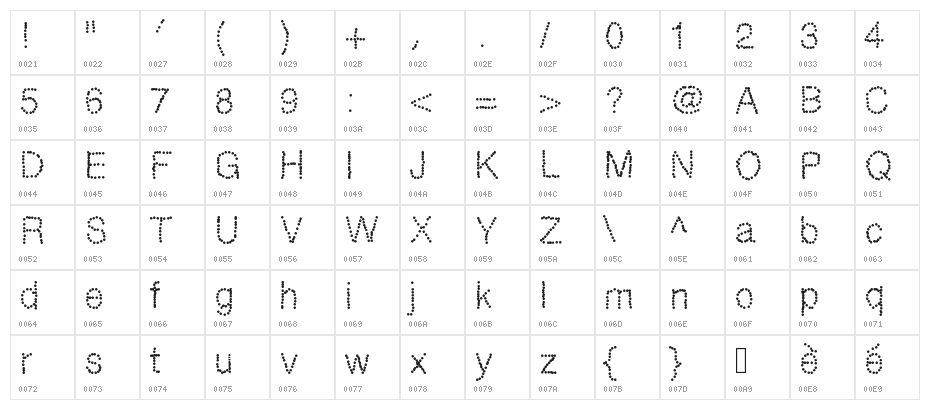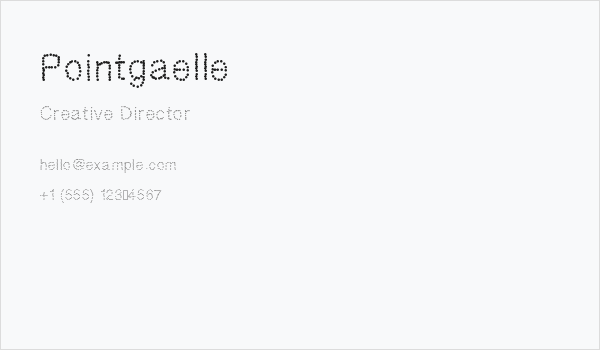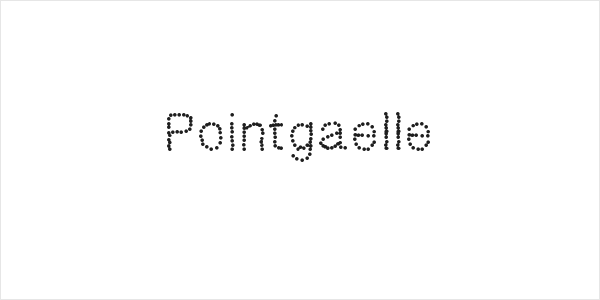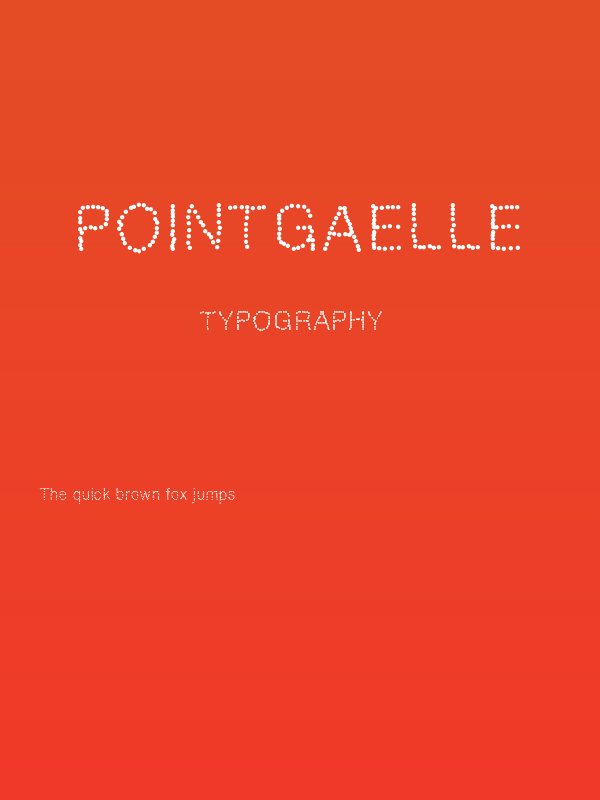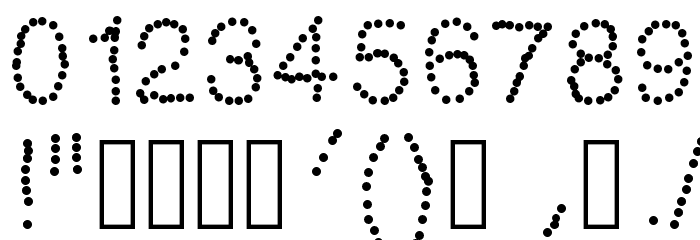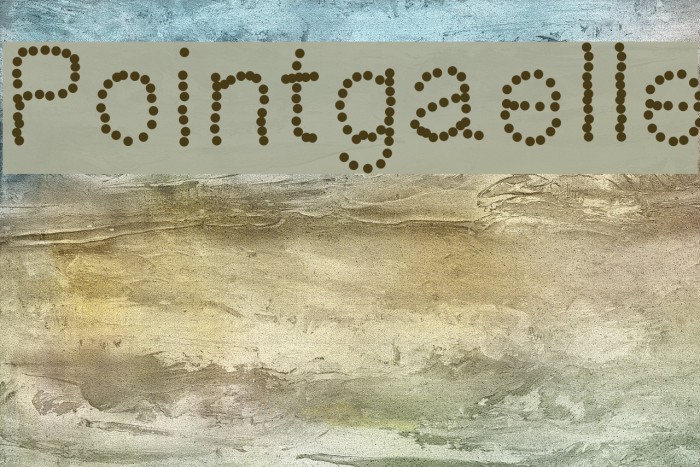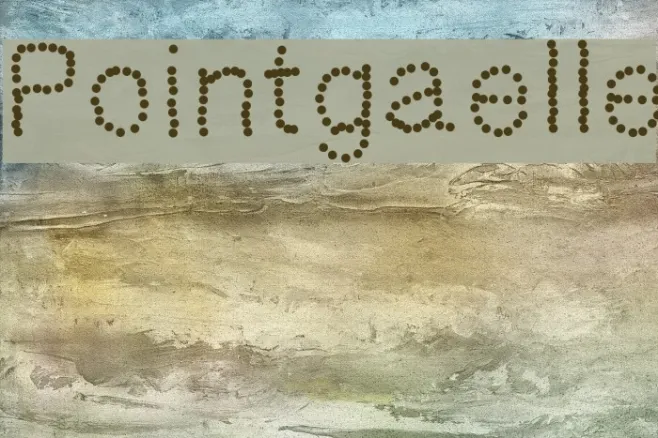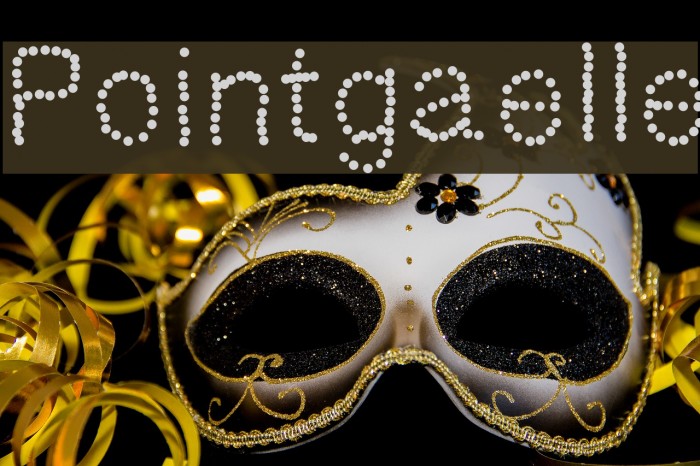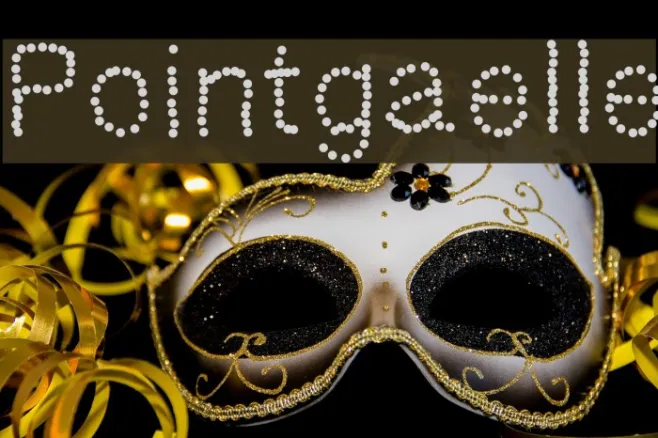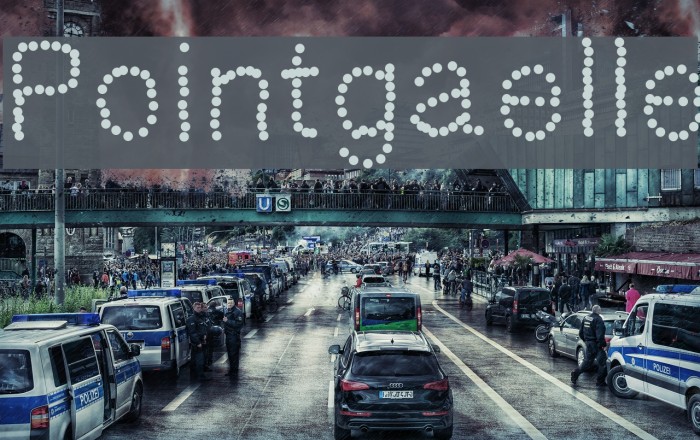
Pointgaelle Font
Pointgaelle Description
This font features a unique dotted design, where each character is composed of small, evenly spaced dots that form the shape of letters and numbers. The style is playful and modern, offering a distinctive look that stands out. The uppercase and lowercase letters maintain consistent spacing and size, while the numbers and special characters follow the same dotted pattern. This font is ideal for creative projects that require a fun and engaging appearance, such as children's books, posters, or party invitations. The uniformity in dot size and spacing ensures readability while adding a decorative touch.
| Proposed Projects | Children's books, posters, party invitations, and playful branding. |